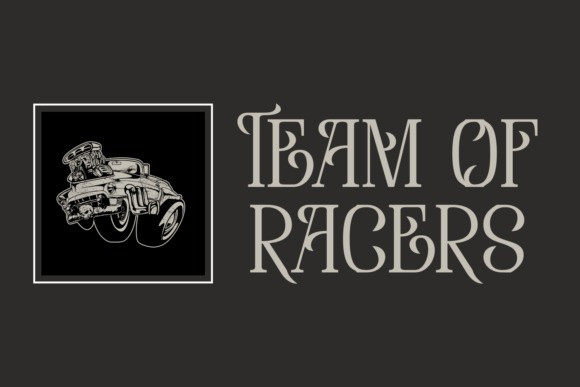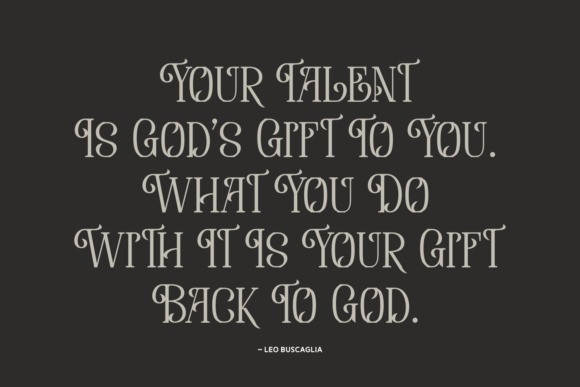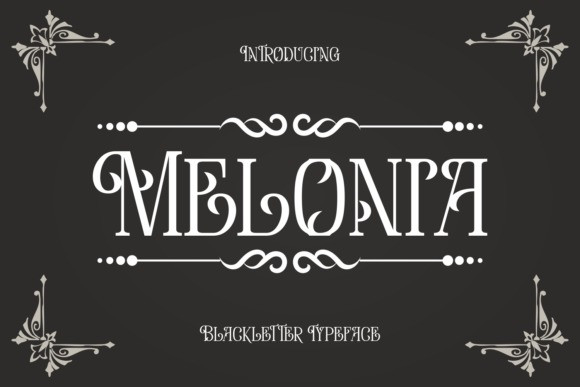
Melonia Font
Melonia Font is a stylish blackletter typeface with a unique ornamental twist, blending gothic tradition with decorative swirls and modern readability. Its elegant curves and striking serifs make it ideal for vintage posters, branding, wedding invitations, book covers, and fantasy-themed projects. Perfect for designs that need a touch of gothic charm mixed with artistic sophistication.